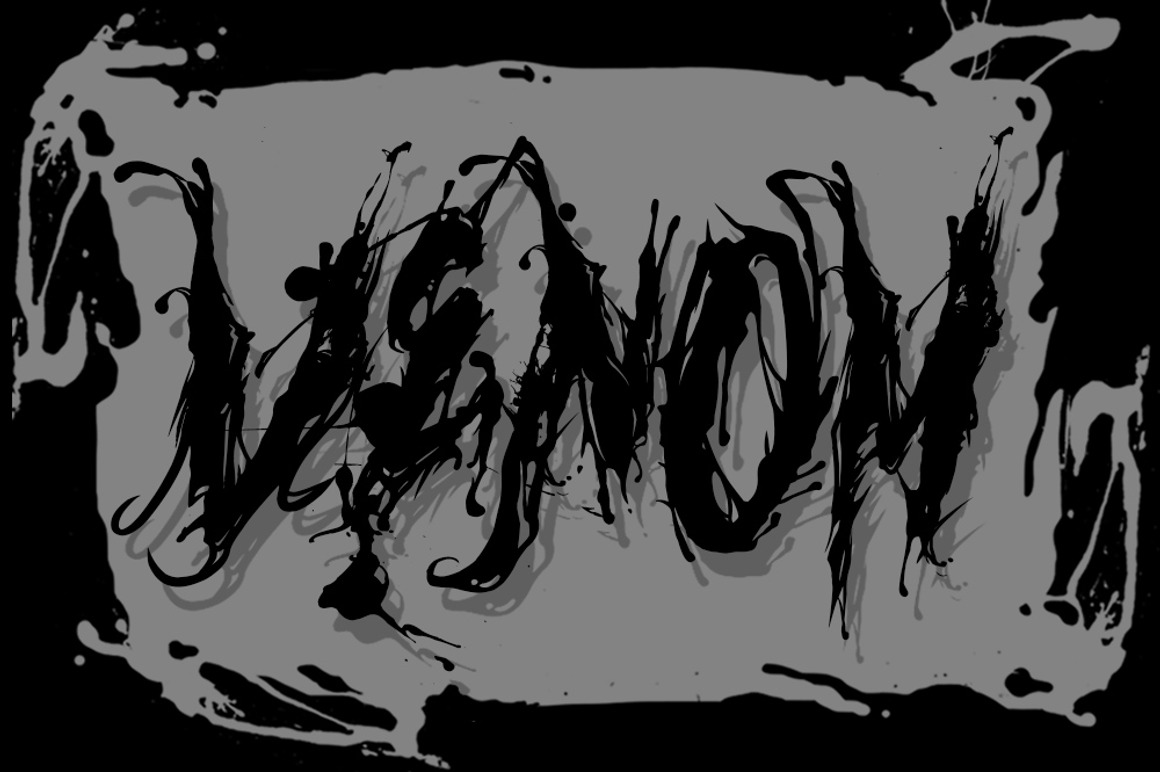
VENOM Font
VENOM Font is perfect for aggressive gaming branding, horror movie titles, extreme sports marketing, heavy metal band logos, dark entertainment promotions, sinister product packaging, menacing poster design, and intense advertising campaigns. This lethal typeface works exceptionally well in both digital applications and print media where toxic intensity and dangerous appeal are essential design elements.
What makes VENOM Font so exciting is its venomous interpretation of lethal aesthetics through sharp letterforms that seem to drip with the deadly precision and toxic power of nature's most dangerous predators. The font features menacing characters with poisonous angles, serpentine curves, and predatory details that create an immediate sense of danger and deadly attraction. Its toxic personality and predatory heritage make it ideal for brands seeking to establish dominance through fear and fascination while communicating raw power, deadly precision, and the irresistible allure of dangerous experiences to audiences who crave extreme thrills.
The VENOM Font family includes multiple weight variations from bold to ultra-toxic, along with distressed alternates and venomous ornamental elements. Each style maintains the typeface's lethal character while offering comprehensive character sets including poisonous numerals, deadly punctuation marks, and special symbols designed to enhance extreme communications and venomous branding efforts across various dangerous contexts.
This extraordinary typeface represents the perfect fusion of natural toxicity and contemporary design power for entertainment and extreme lifestyle industries. Whether you're developing horror gaming identities, creating extreme sports promotions, or designing heavy metal merchandise, VENOM Font Free Download delivers the lethal intensity and versatility needed to dominate the most extreme audiences. The font's venomous aesthetic makes it particularly effective for gaming companies, extreme sports brands, horror entertainment, and businesses targeting audiences who seek the ultimate adrenaline rush and dangerous excitement.
The meticulously engineered toxic construction and optimized lethal performance in VENOM Font ensure maximum venomous impact while maintaining clear communication across all extreme applications. Its deadly presence makes it ideal for dangerous branding, extreme marketing campaigns, and toxic communications where its full venomous character can create unforgettable impressions and establish immediate association with power, danger, and the intoxicating allure of extreme experiences.